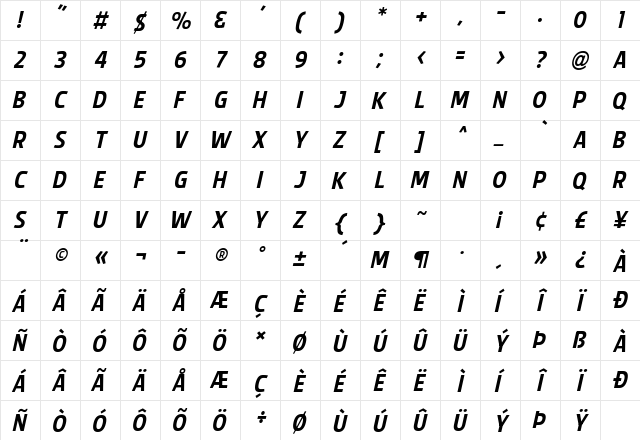
Splendid Plan 9 Italic
Design Context for Splendid Plan 9 Typeface
Splendid Plan 9 takes a measured approach to typography — its balanced proportions and neutral character make it a reliable workhorse for both digital and print work. The dynamic lean of this cut emphasises speed and emphasis in any layout.
Pro Tip: Try Splendid Plan 9 for annotation and caption copy alongside an upright companion — the contrast in angle creates a dynamic but ordered typographic system.